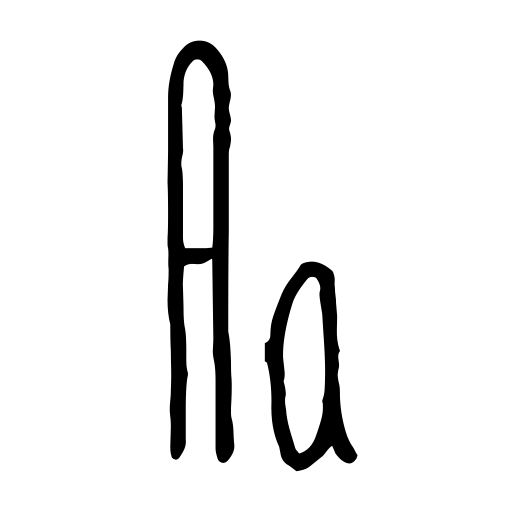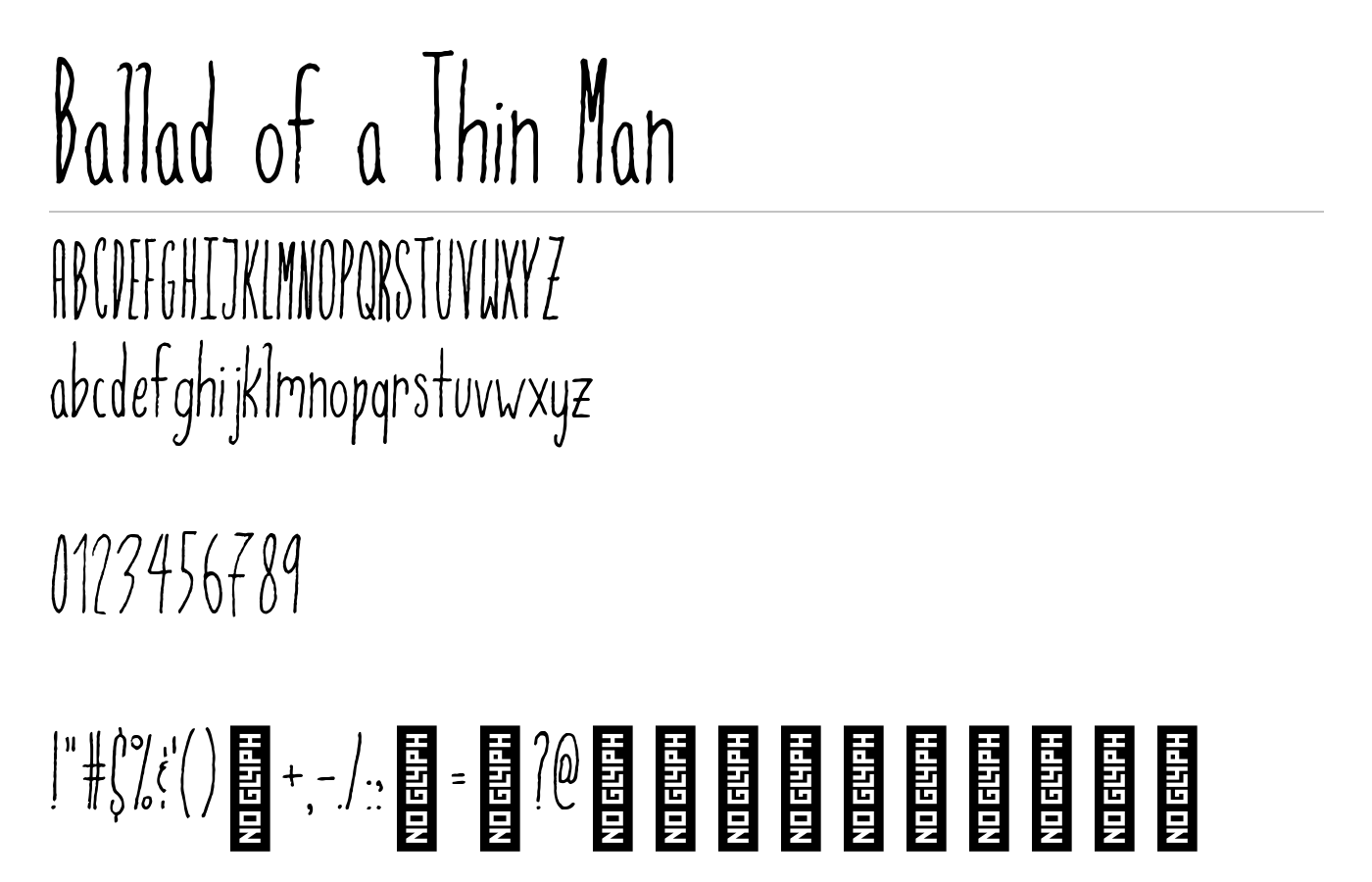
Ballad of a Thin Man is a tall, narrow, handwritten-style font with a delicate, uneven stroke that gives it a quirky and artistic feel. Its slender letterforms and slightly irregular lines convey a vintage, slightly eerie mood, perfect for creative projects seeking a distinctive, personality-rich typeface. This font works well in headlines, posters, or branding that aims to stand out with an unconventional and expressive look.
Ballad of a Thin Man Font
About Ballad of a Thin Man Font